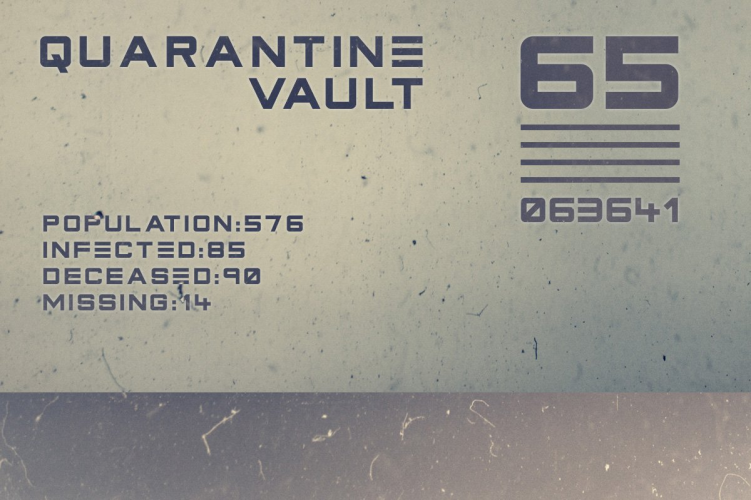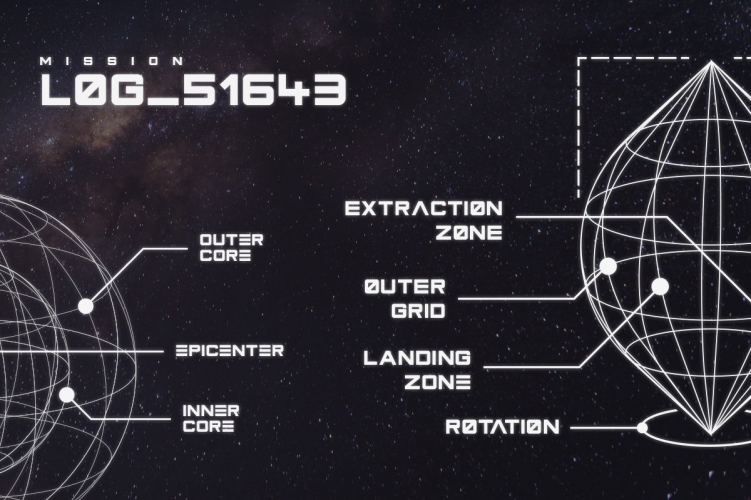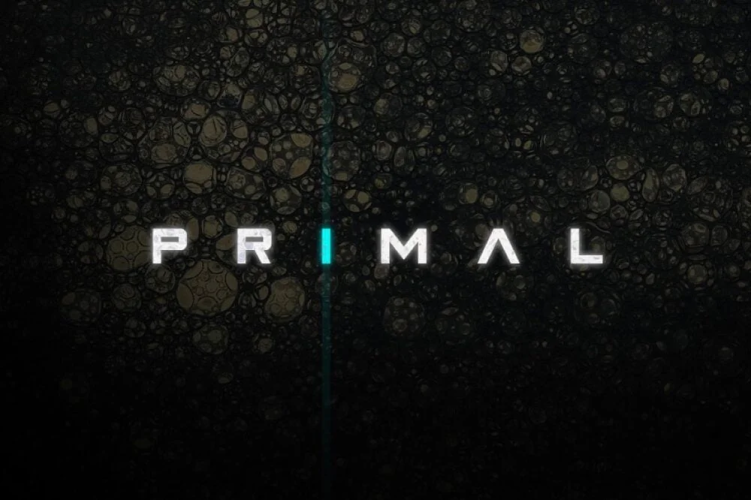
Primal Font
Primal Font is a font inspired by old Science Fiction Horror movies. I particularly enjoy using it with wide spacing for titles.
It includes Uppercase multilingual letters, alternate letters, numbers, and punctuation. Toggle caps lock to use alternate versions of some letters.
Where Primal Font works best
Thumbnails and covers
Primal Font is built to be recognised small. Three words, high contrast, and it survives being scaled to a phone screen.
Event and match posters
Display letters at full width make a date and a name readable across a room, which is all a poster has to do.
Merch and streetwear
Heavy display shapes print cleanly on fabric and stay legible when the garment moves.
What kind of work does Primal Font suit?
It sits in the Display Fonts group and reads as display, display fonts, headlines, professional. That makes it a candidate wherever those qualities help: headings, packaging, social graphics and brand work. Set it at the size you plan to use before deciding.